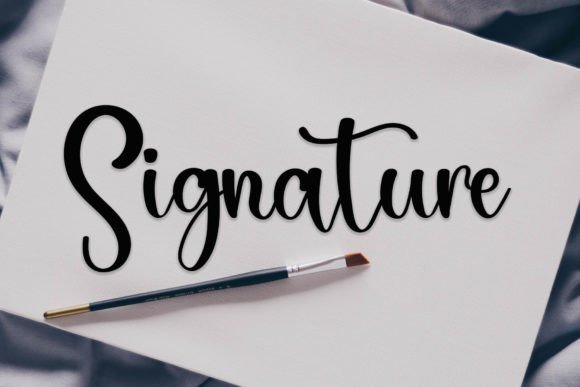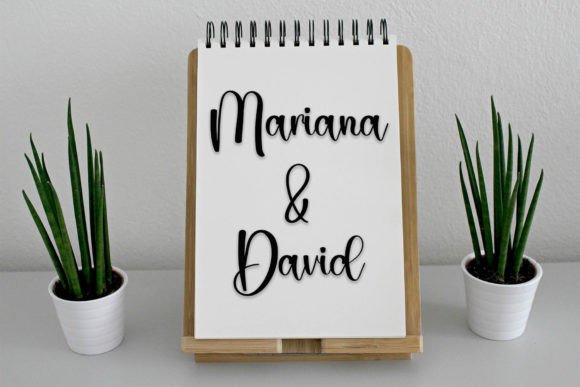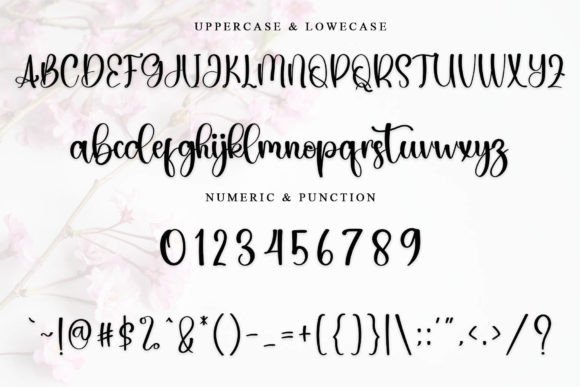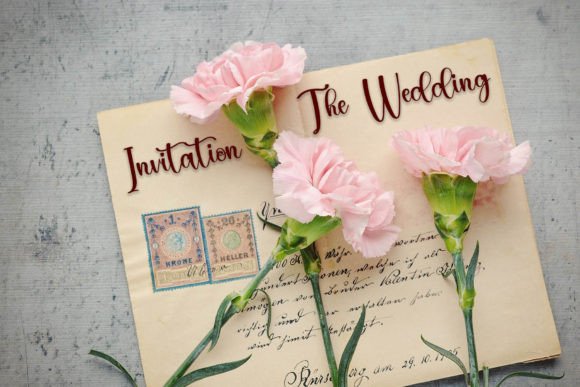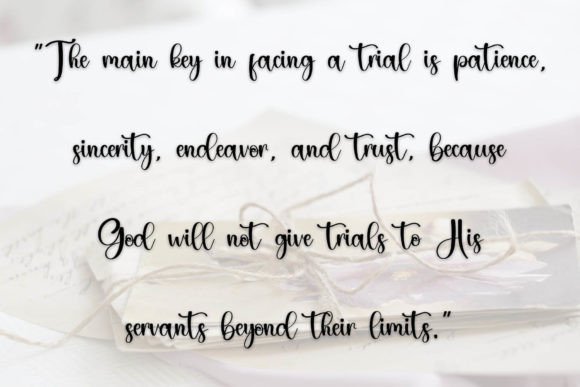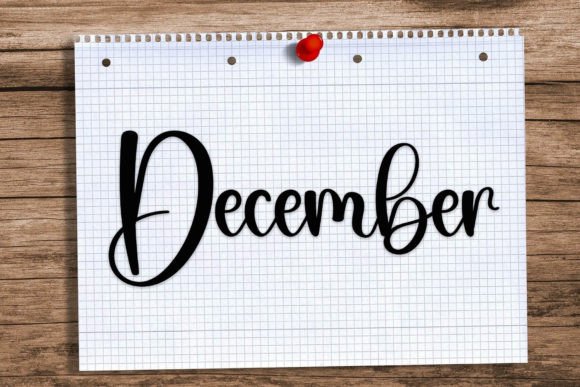
Unlock the Magic of Your Creative Ideas with Butter Font
Have you ever sat in front of a blank page or screen, trying to bring your creative vision to life, but struggling to find the perfect font to match your artistic style? We’ve all been there – the frustration of scrolling through endless font options, only to settle for something that’s just ‘good enough’. But what if you could find a font that elevates your designs, adds a touch of elegance, and turns your ideas into masterpieces?
Enter the enchanting Butter Font – a carefully crafted script font that’s sure to captivate your heart and inspire your creativity. Whether you’re a seasoned designer or a DIY enthusiast, this font is the perfect addition to your toolkit. With its timeless style and incredibly distinct character, Butter Font is the perfect choice for anyone looking to add a touch of magic to their designs.
Butter Font Key Features
- Font Size: The font has 6 weights, ranging from Light to ExtraBold, allowing designers to choose the perfect level of emphasis for their text.
- Unique Characteristics: The font features a unique, rounded design with subtle curves and a warm, friendly feel, making it perfect for use in branding, advertising, and packaging design.
- Language Support: The Butter Font supports a wide range of languages, including Latin, Cyrillic, and Greek scripts, making it a versatile choice for designers working on international projects.
- Font Metrics: The font has a x-height of 55% and an ascender height of 80%, making it highly readable and suitable for use in body text and headings.
Designer Review: Butter Font
As a designer, I was excited to dive into the Butter Font and see what it had to offer. Here are my honest thoughts:
- ✨ Friendly and approachable feel: The Butter Font has a warm and inviting aesthetic that makes it perfect for body text or titles in casual settings.
- ✨ Highly legible: The font is well-designed for readability, making it suitable for long blocks of text.
- ✨ Versatile: The Butter Font is available in multiple weights, making it easy to mix and match with other fonts for a cohesive look.
- ⚠️ Limited for formal settings: While the font is great for casual projects, it may not be the best choice for formal or professional settings where a more serious font is needed.
- ⚠️ Not ideal for headlines: While the font is readable, it may not be the most effective choice for headlines or titles where a bolder font is needed to grab attention.
I’d say the Butter Font is a solid choice for designers looking for a friendly and approachable font for casual projects. While it may not be the best fit for every situation, it’s definitely worth considering for its versatility and readability.
The Butter Font is ideal for creating a playful and whimsical design aesthetic. It’s commonly used for:
– Children’s book covers
– Food branding
– Party invitations
Use the Butter Font to add a touch of warmth and personality to your designs.
Alternatives to Butter Font for Designers
Montserrat is a sans-serif font that is highly legible and versatile. It’s ideal for use in body text, headings, and even logos. Montserrat has a more geometric feel compared to Butter Font, which is more rounded and friendly.
Alegreya is a serif font that is elegant and sophisticated. It’s perfect for use in headings, titles, and other display text. Alegreya has a more classic feel compared to Butter Font, which is more modern and trendy.
Playfair Display is an elegant and luxurious serif font. It’s ideal for use in headings, titles, and other display text where a touch of sophistication is needed. Playfair Display has a more ornate feel compared to Butter Font, which is more minimalist.